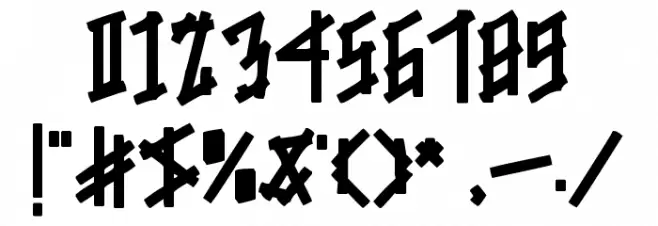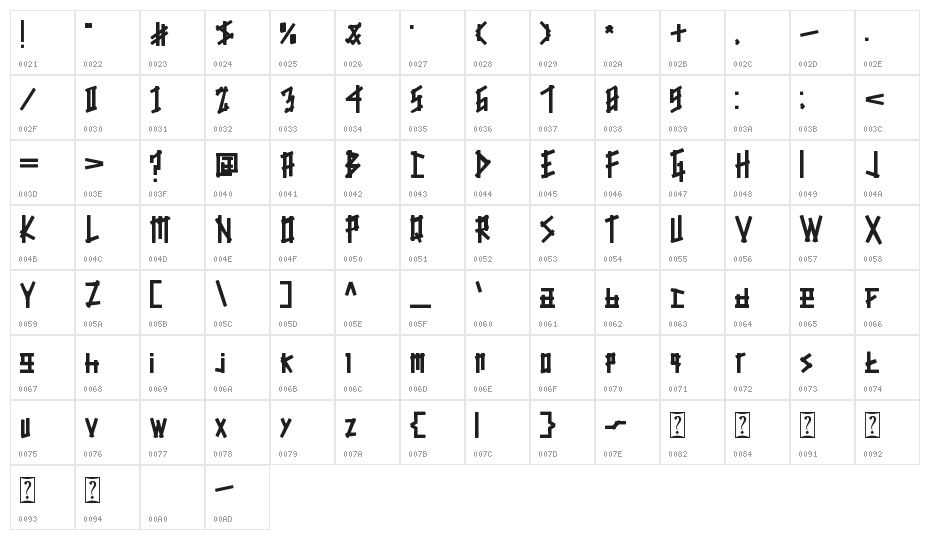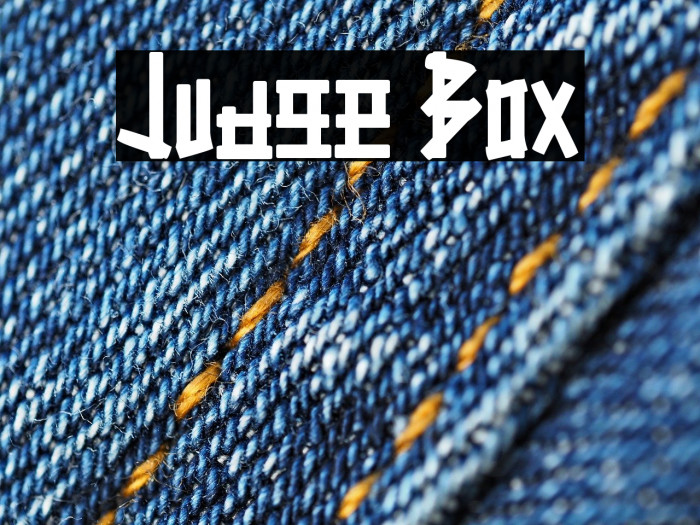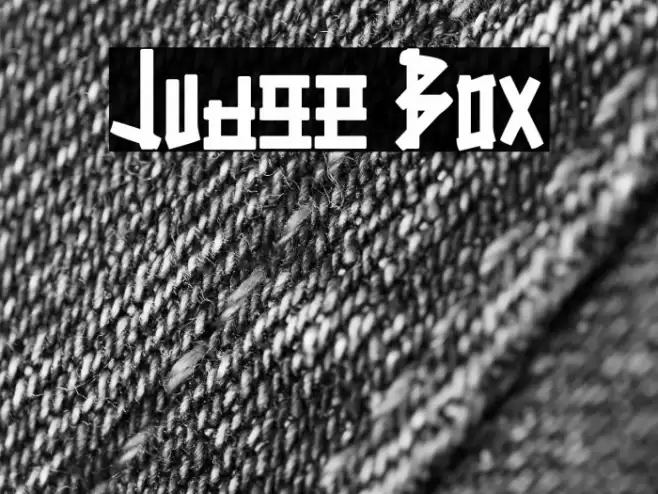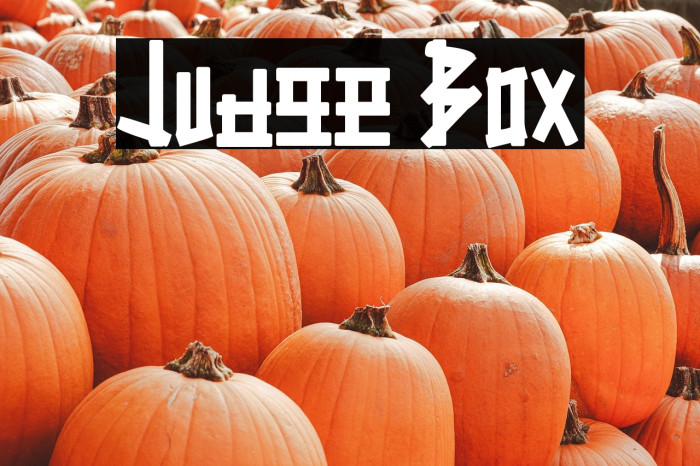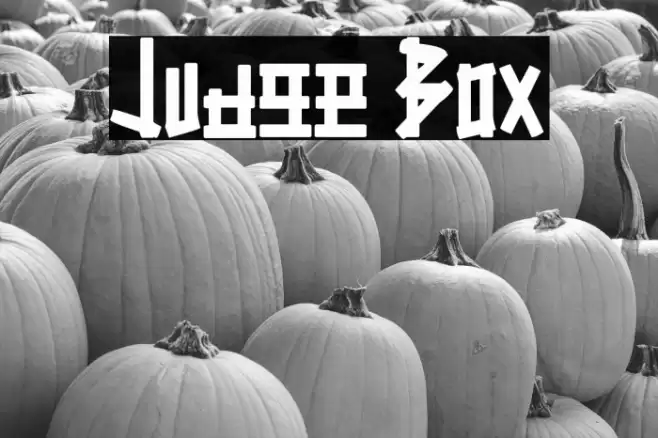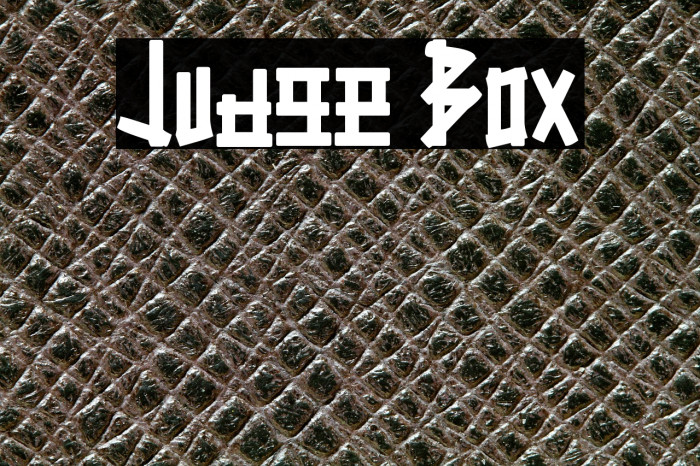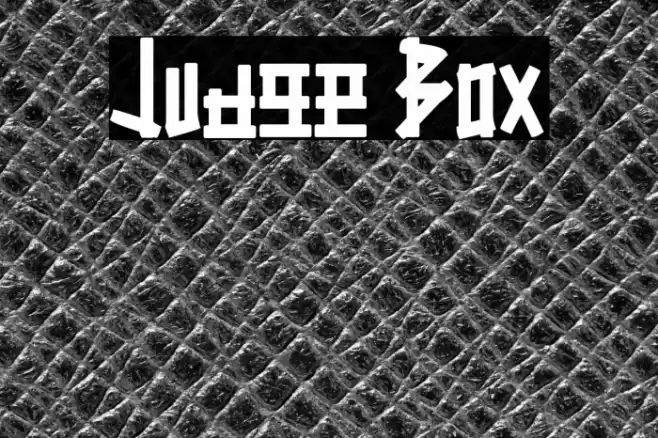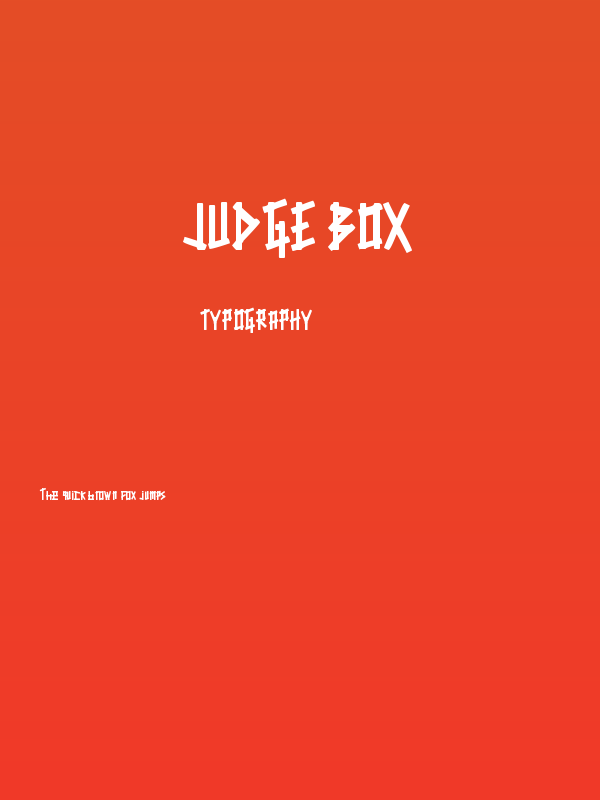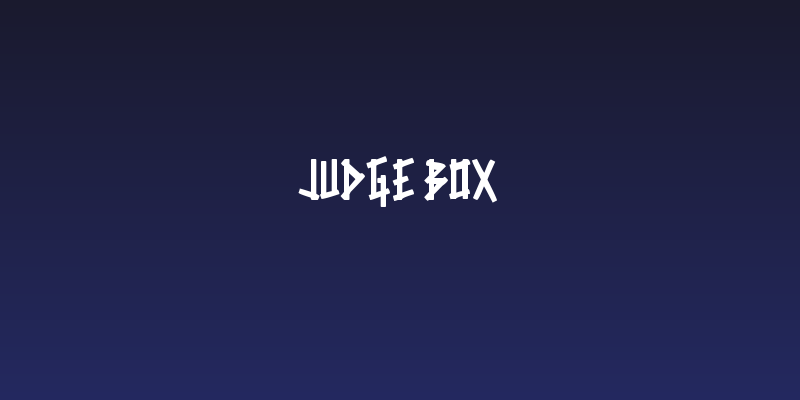
Judge Box Font
Judge Box Description
This font features a bold and angular design, characterized by its sharp edges and geometric shapes. The letters have a blocky appearance, with consistent thickness throughout each character, giving it a strong and impactful presence. The uppercase and lowercase letters maintain a uniform style, while the numbers and special characters complement the overall aesthetic. The font's unique structure makes it stand out, offering a modern and edgy look that is both eye-catching and distinctive.